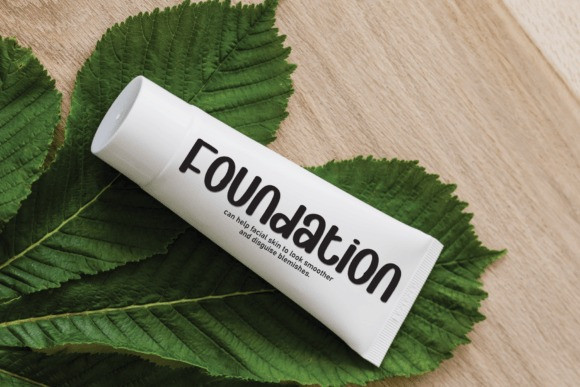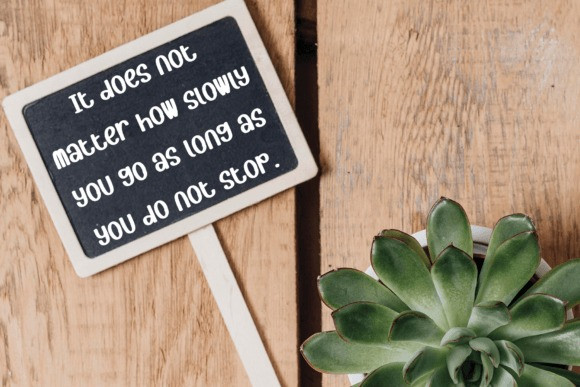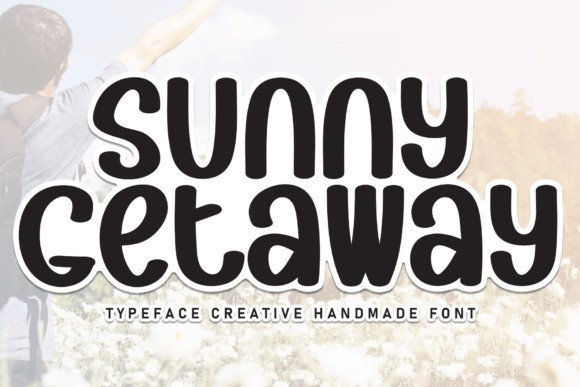
Sunny Getaway Font
Sunny Getaway Font is a sweet and friendly handwritten display font. Cute and fun, this font is ideal for writing wedding invitations, cards, or any other design that might need a fun touch!